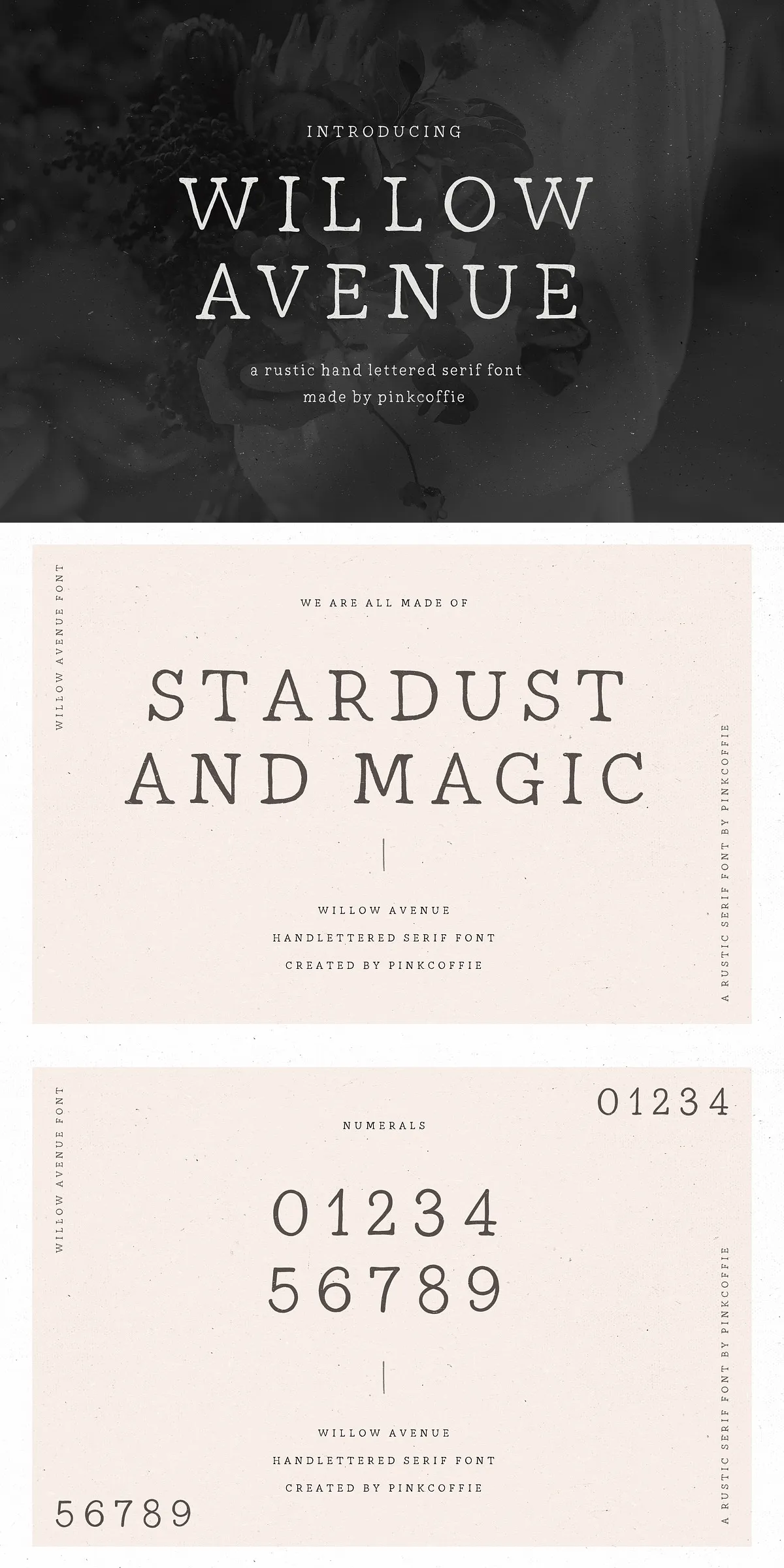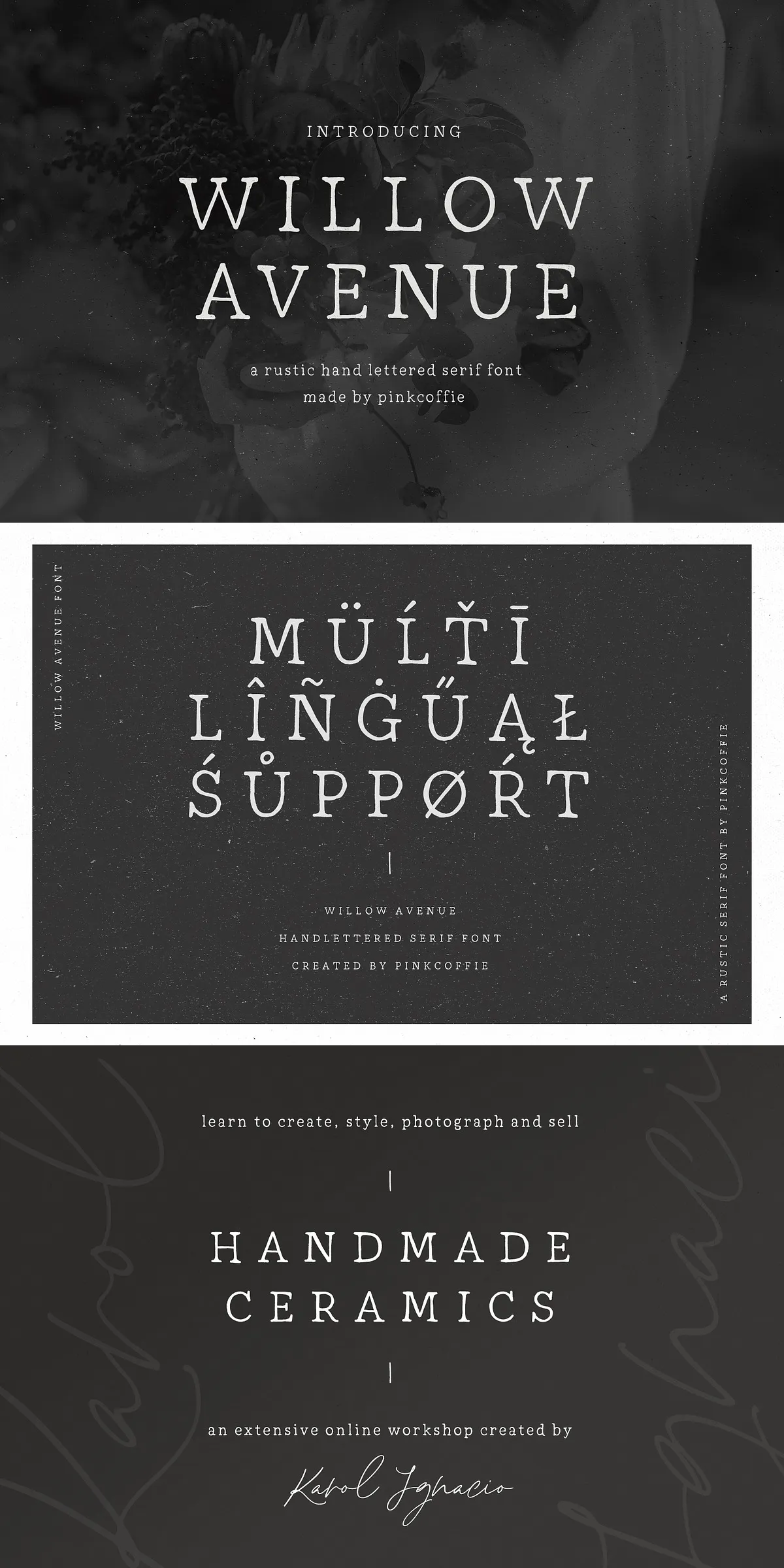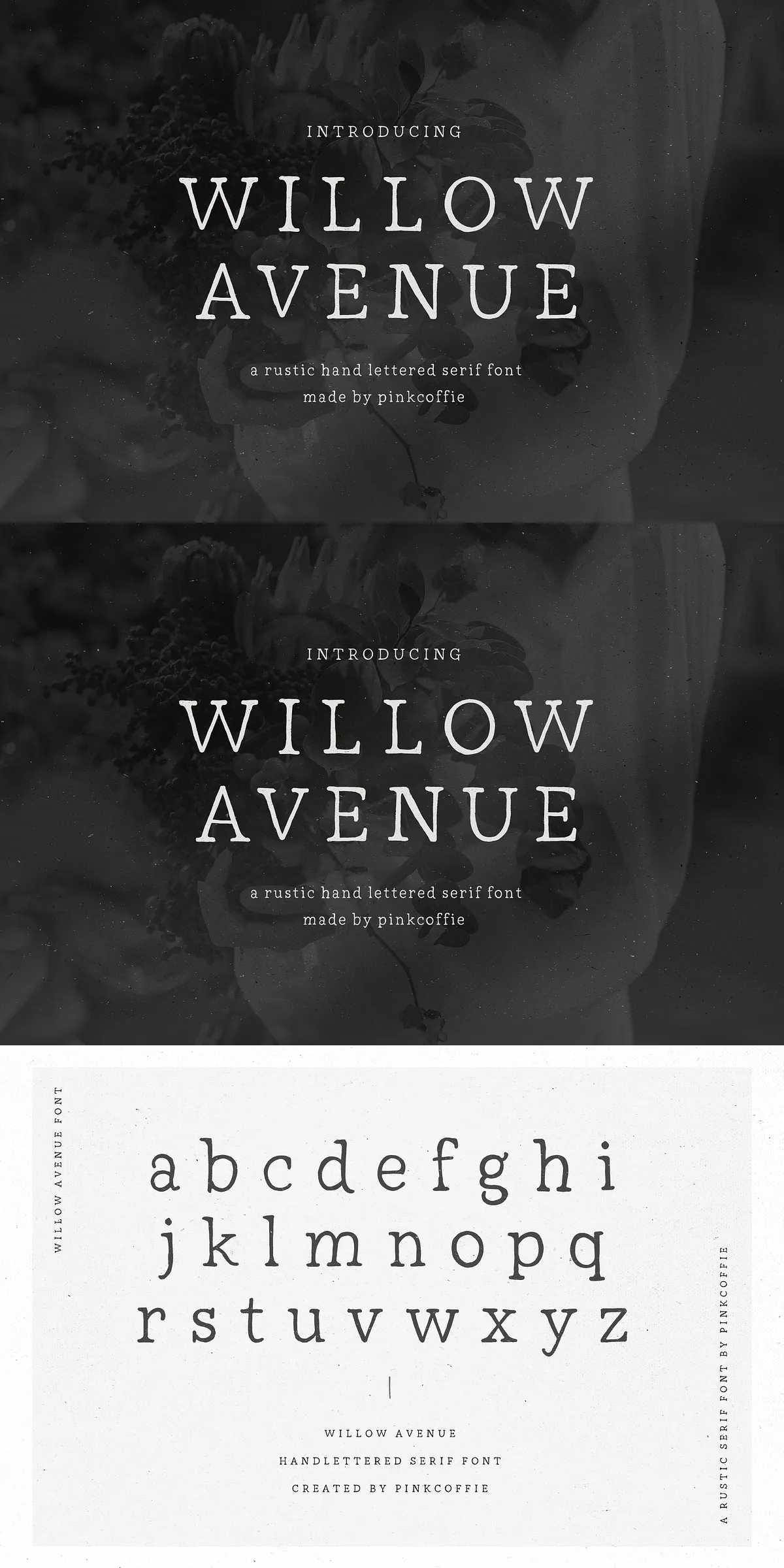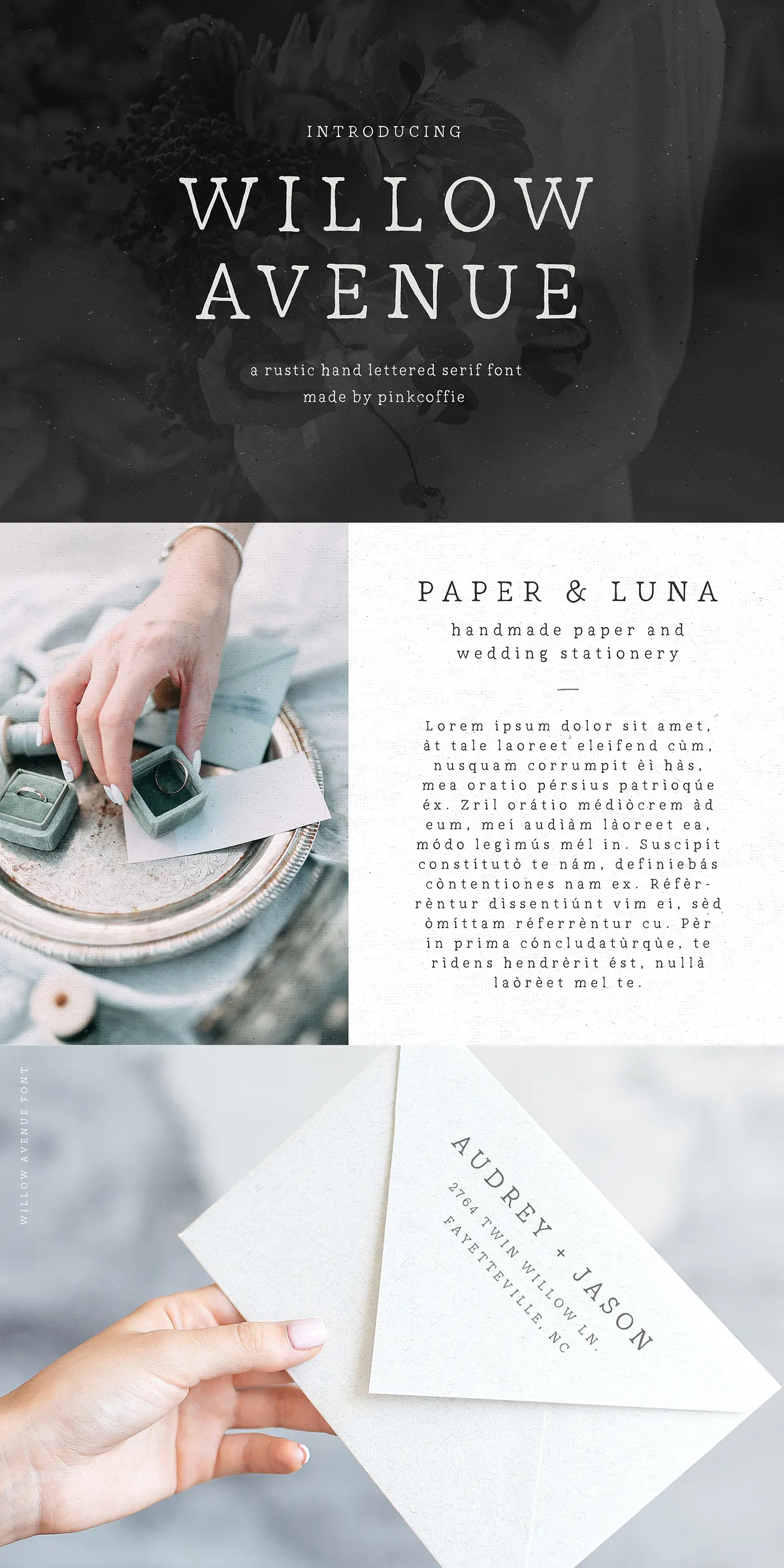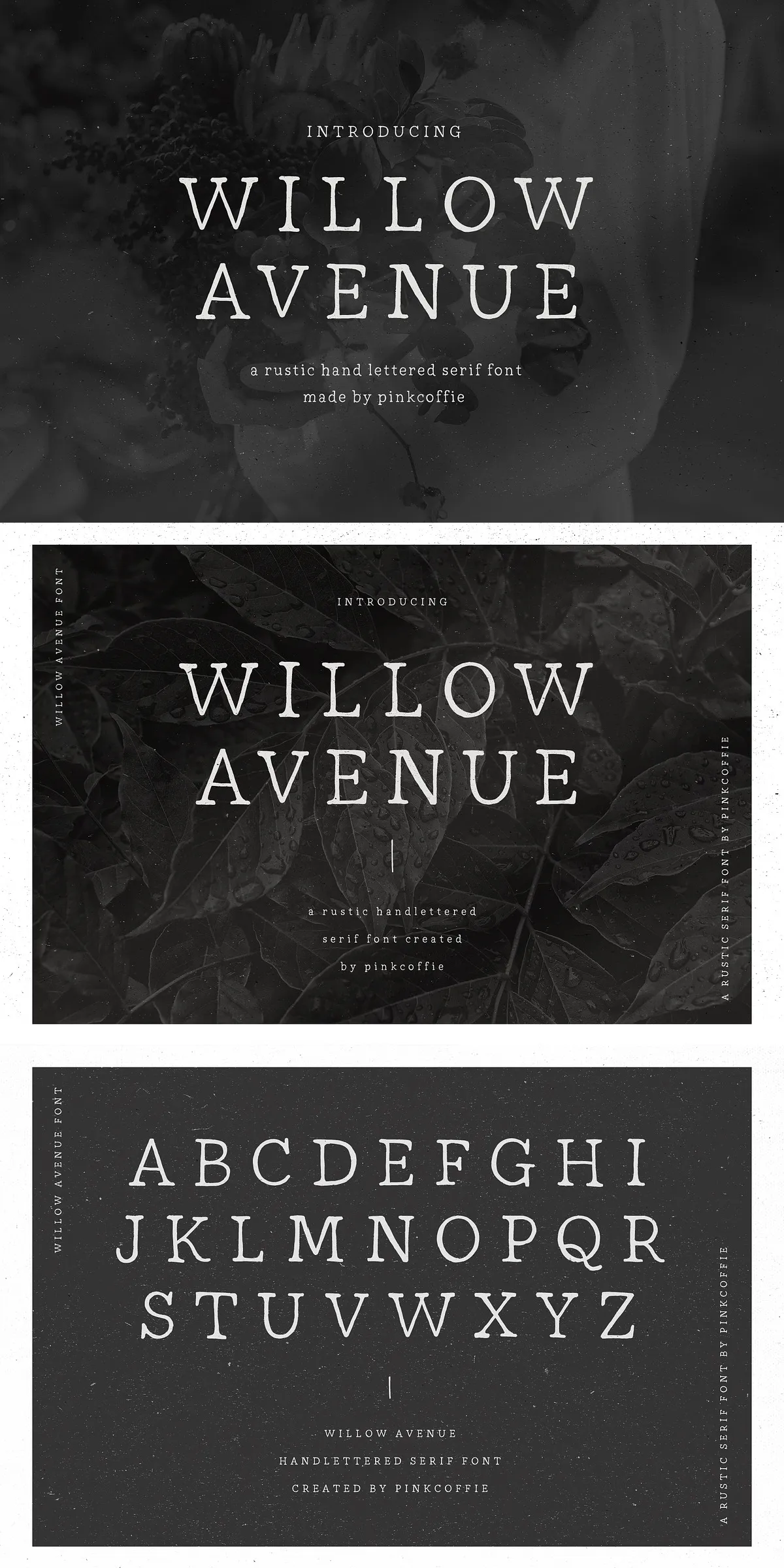
Willow Avenue | Hand lettered Serif
Willow Avenue draws its personality from handcrafted ceramics and rustic stationery, bringing a tactile, artisanal feel to modern typography. The letterforms show thoughtful stroke contrast and subtle irregularities that suggest a hand-drawn origin while remaining fully refined for digital and print workflows. Designers will find Willow Avenue effective for projects that require an immediate sense of warmth, authenticity, and tasteful nostalgia. The face reads clearly in display sizes and sustains its charm when scaled for larger headlines, signage, and packaging treatments.
Primary Uses And Recommended Creative Applications
Apply Willow Avenue across branding, product packaging, editorial headers, wedding invitations, social media graphics, and lifestyle photography overlays. Its handcrafted serif voice elevates boutique identities, artisanal product labels, and hospitality branding. Use it as the primary logotype font to create memorable wordmarks, or combine it with a neutral sans-serif for body copy to preserve readability while maintaining a handcrafted headline presence. The font pairs particularly well with muted palettes, organic textures, and tactile print finishes like letterpress or soft-touch coating.
Practical Tips For Using Willow Avenue Effectively In Designs
Choose Willow Avenue for primary display text and logotypes, then balance it with a simple sans for longer paragraphs. Increase letterspacing slightly for tight display settings to preserve legibility and reveal the font’s hand-lettered details. When preparing files for print finishes (foil, emboss, or letterpress), test a small proof to confirm stroke weight and optical balance. For digital applications, preload the webfont and use appropriate font-display settings to ensure consistent rendering across browsers.
Character Set And Multilingual Support Available In Willow Avenue
Willow Avenue includes a comprehensive set of uppercase and lowercase letters, numerals, punctuation, and extended multilingual characters to support Central and Western European languages. The package delivers a ready-to-use character map so you can confirm glyphs and accents during layout. Example multilingual characters included: ÁĂÂÄÀĀĄÅÃÆĆČÇĊÐĎÉĚÊËĖÈĒĘĞĠÍÎÏÌĪĮĹĽŁŃŇÑÓÔÖÒŐŌØÕŔŘŚŠŞŤÚÛÜÙŰŪŲŮÝŸŹŽŻ and their lowercase equivalents.
Why Choose Willow Avenue For Your Next Project
Willow Avenue actively reinforces brand authenticity and crafts a human, approachable tone. It performs strongly in hero headlines and packaging lockups while offering practical format support that speeds production. Designers who want to communicate handmade quality without sacrificing professionalism will find Willow Avenue a reliable and expressive choice.
Adopt Willow Avenue to give your designs an elegant, handcrafted voice that reads confidently across print and digital channels. The font’s balance of rustic charm and technical readiness makes it an excellent asset for boutique brands, stationery designers, and creative projects that need a warm, personal typographic identity.